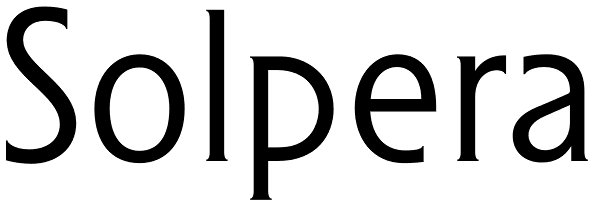
Solpera
This type face fills one of the gaps between the world of Roman alphabets and that of linear alphabets. The first to be designed was the set of upper-case letters. The expression of these characters cannot conceal that they were originally intended...